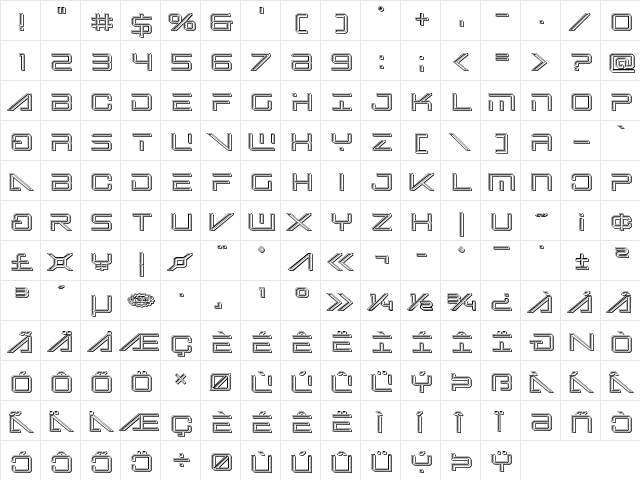
Banshee Pilot Engraved Regular
Design Context for Banshee Pilot Engraved Typeface
Banshee Pilot Engraved is built around its visual character rather than neutral utility — its distinctive forms are designed to make an impression at display sizes.
Font Pairing: Pair with a clean neutral sans-serif for body copy to let Banshee Pilot Engraved's character lead without overwhelming the composition.
Pro Tip: Use Banshee Pilot Engraved exclusively at display sizes — it was designed to be seen, not read at length. Let a neutral companion handle body copy.